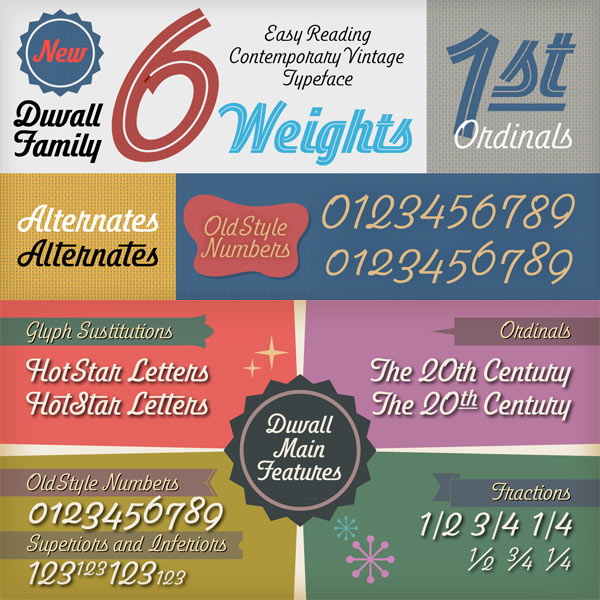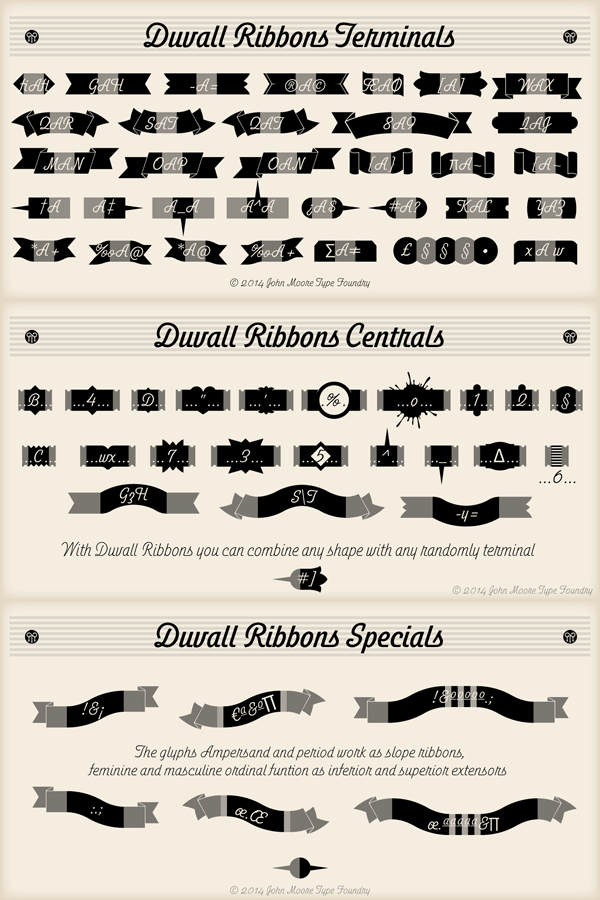
Duvall – Cursive Script Font Family.
The Duvall font family from John Moore Type Foundry is a tribute to the letterings of Mr. Duvall, a teacher in lettering, who was known for his book “Modern Sign Painting” in the 1940s and 1950s.
Duvall is a cursive script font family that includes 5 weights plus Duvall Style, a decorative Inline typeface and Duvall FunWords as well as a set of stylistic ribbons. The Duvall font family is intended to be a decorative cursive display font for striking vintage headlines and titlings. The several OpenType features let you compose alternate characters or old style numbers. Duvall supports Eastern and Western European languages.
This is truly a beautiful cursive script font family for any kind of vintage design and typography.